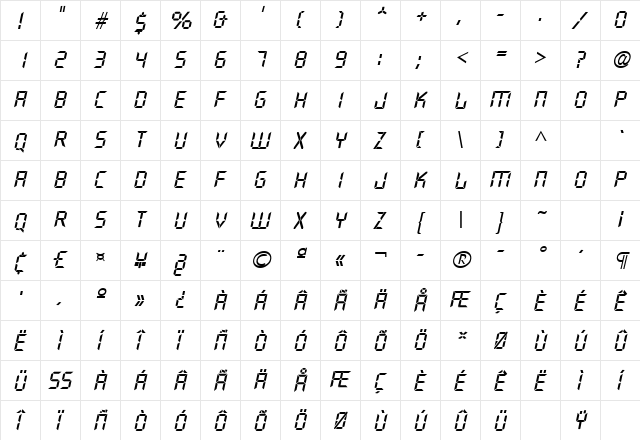
Quartz Italic
Design Context for Quartz Typeface
Quartz takes a measured approach to typography — its balanced proportions and neutral character make it a reliable workhorse for both digital and print work. The slanted form adds forward momentum and visual energy.
Pro Tip: Use Quartz for emphasis, pull quotes, and subheadings where its slanted energy can add rhythm to the layout.